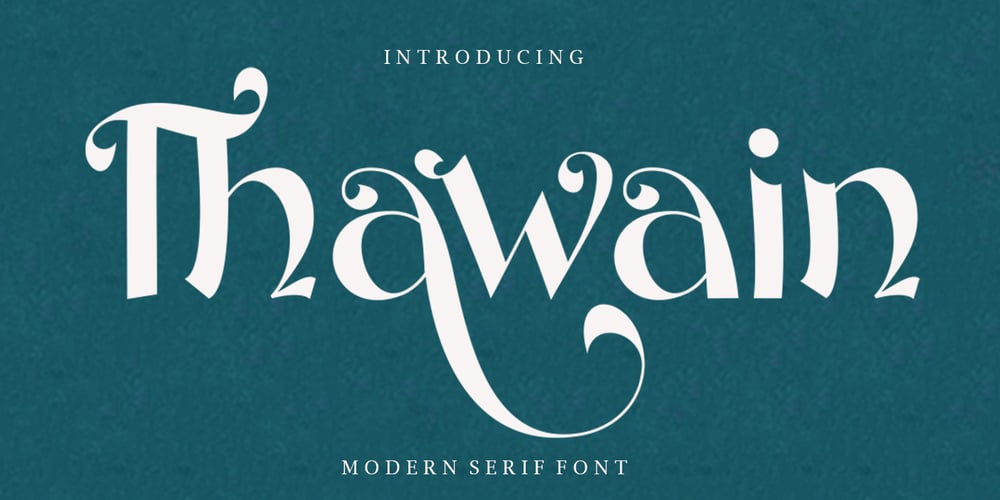
Thawain Serif Font Family was designed by Teuku Saifullah and published by Shape Studio. Thawain Serif contains 1 styles and family package options. Introducing Thawain Serif is a bold, unique, fashionable, luxurious, modern and elegant serif with lots of ties and alternatives that will make your presentation more amazing and stand out! Thawain Serif also supports Multi Languages. and PUA has been coded!This font is a versatile font and is perfect for any modern project including branding designs, logos, invitations, wedding decorations, website designs, Instagram, business cards, and more!Feature:Give us “like” and support our work. Thank you very much.Have a nice day and Enjoy !!!